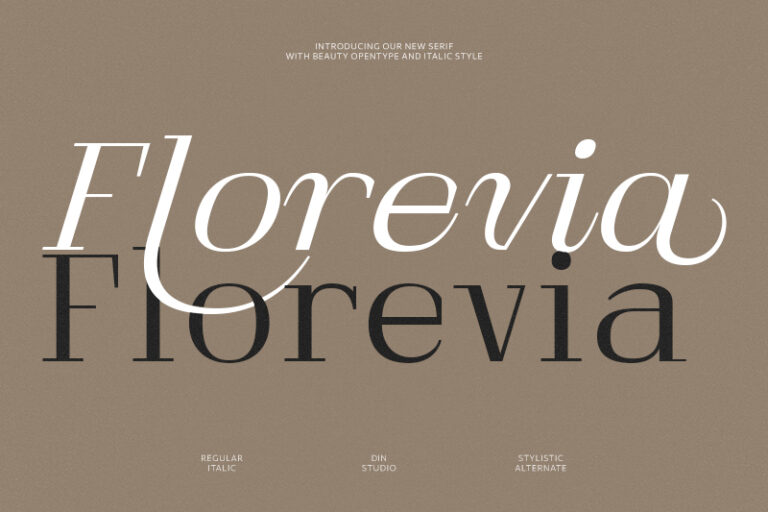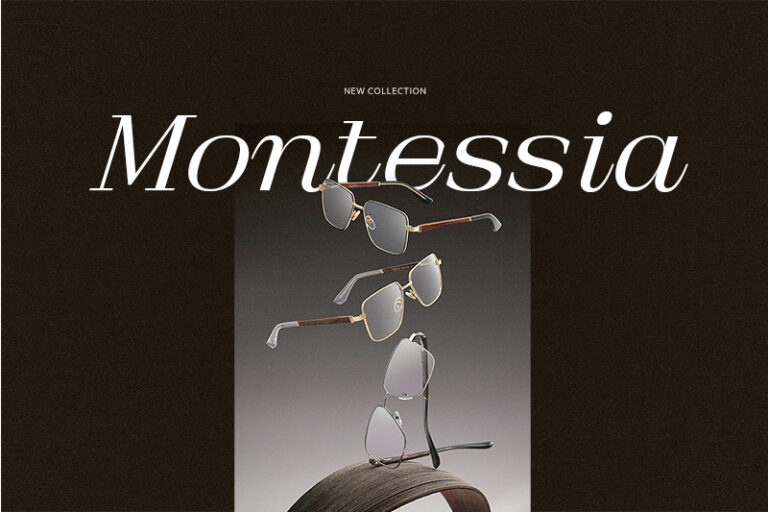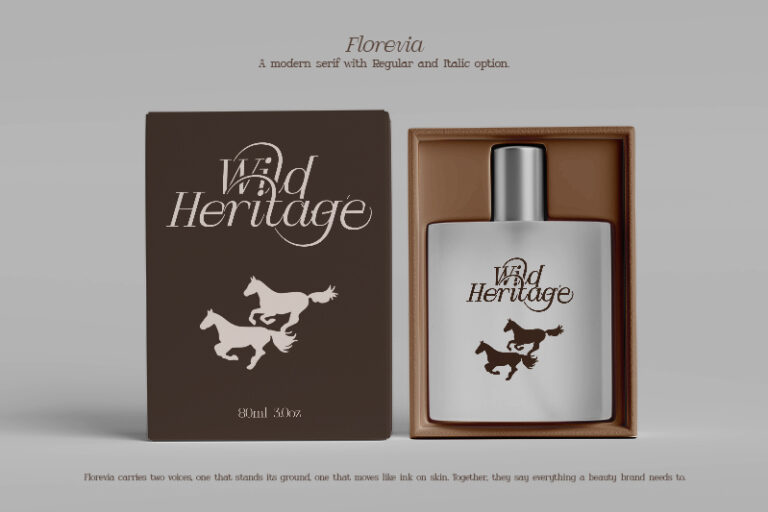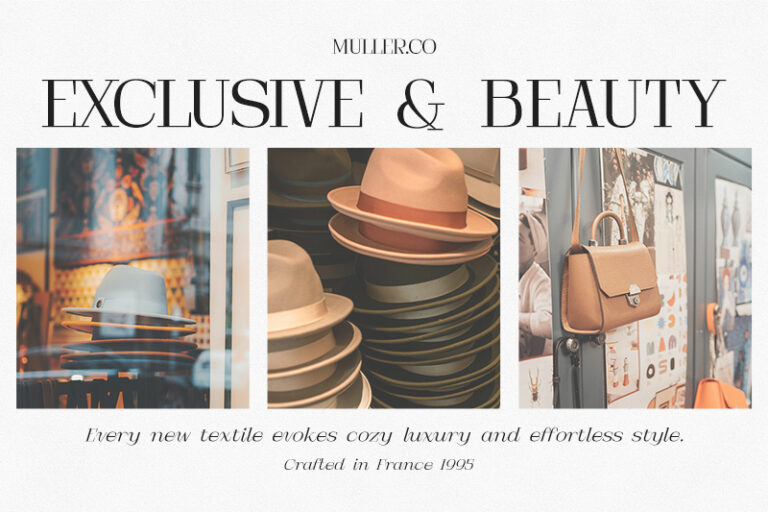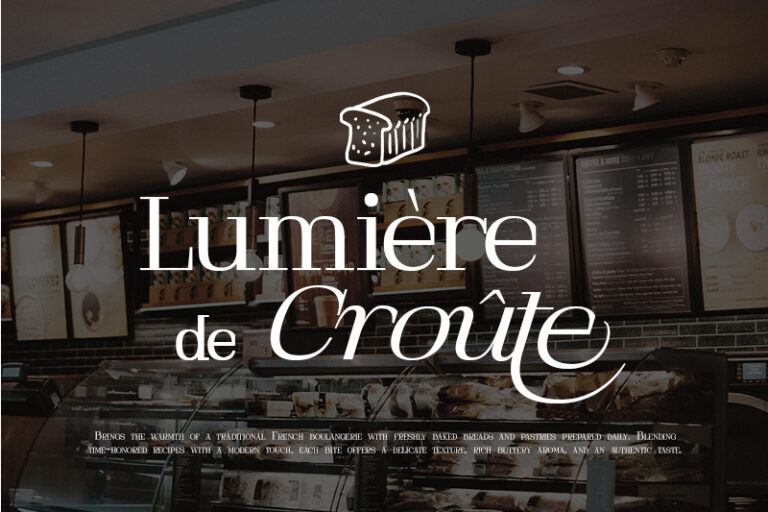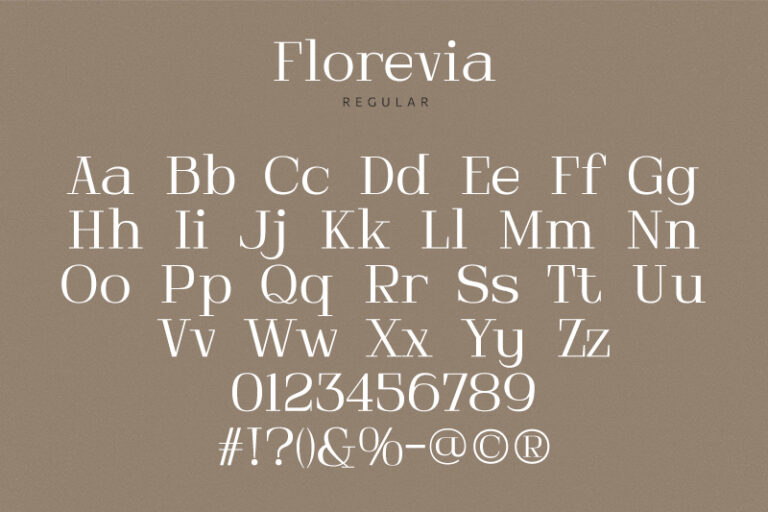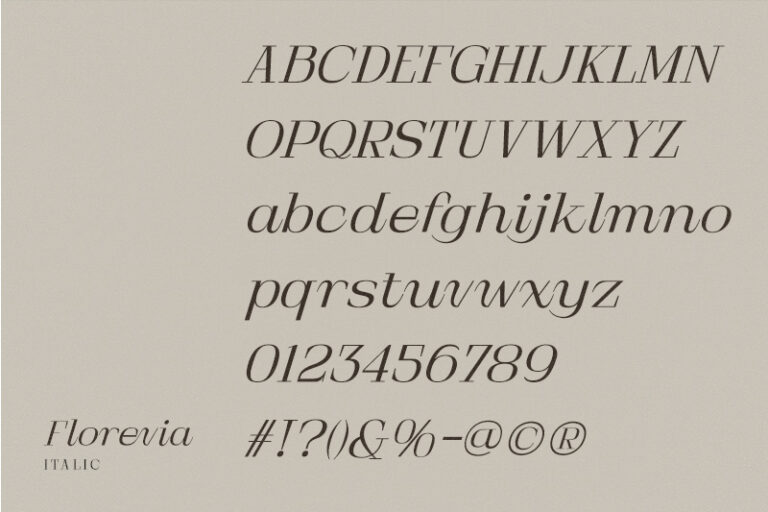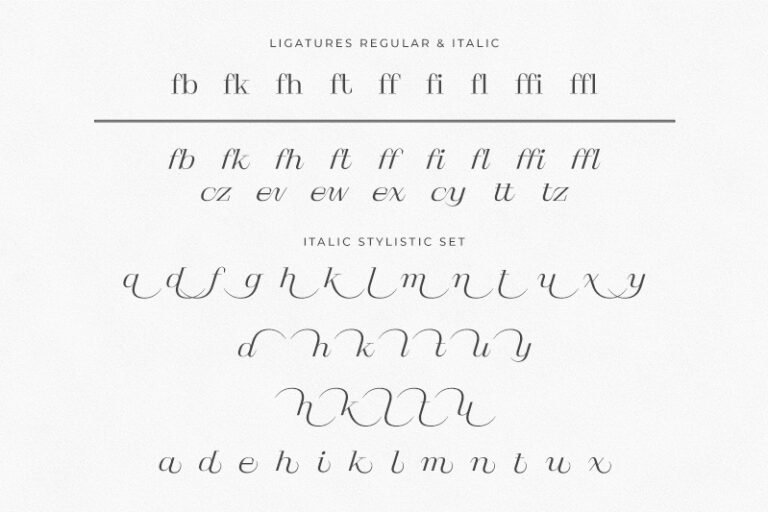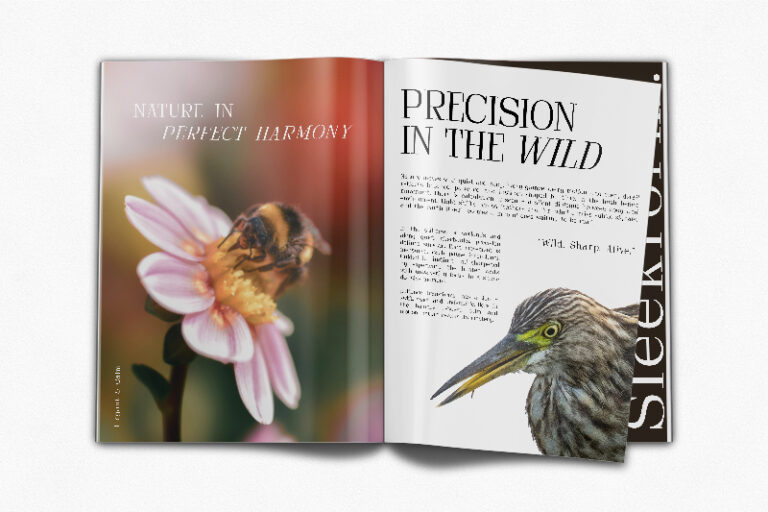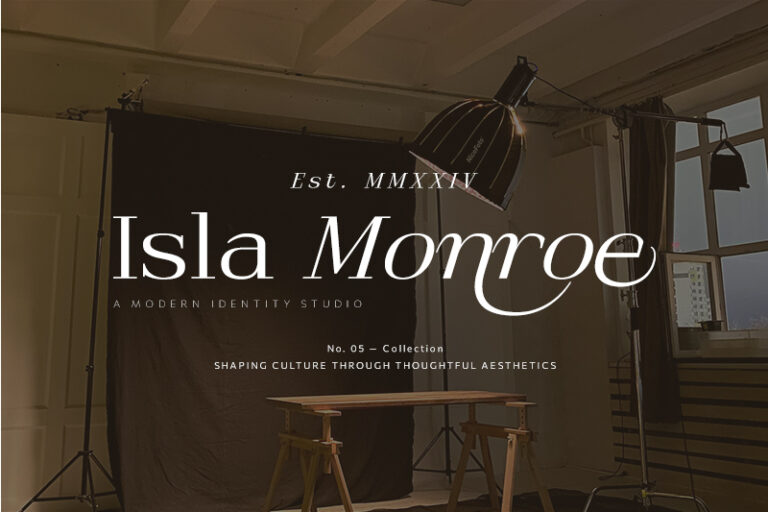
Florevia – Elegant Serif Font
Florevia
Florevia is a beautifully crafted serif font that combines simplicity and elegance in a timeless typographic design. With its clean letterforms, refined serif details, and balanced proportions, Florevia delivers a sophisticated appearance that works effortlessly across a wide range of creative projects. What makes Florevia even more special is its carefully designed italic version. The italic style adds a smooth and expressive flow that complements the regular form perfectly, offering additional versatility and charm. In addition, enjoy the features here.
- Ligatures
- Stylistic Sets